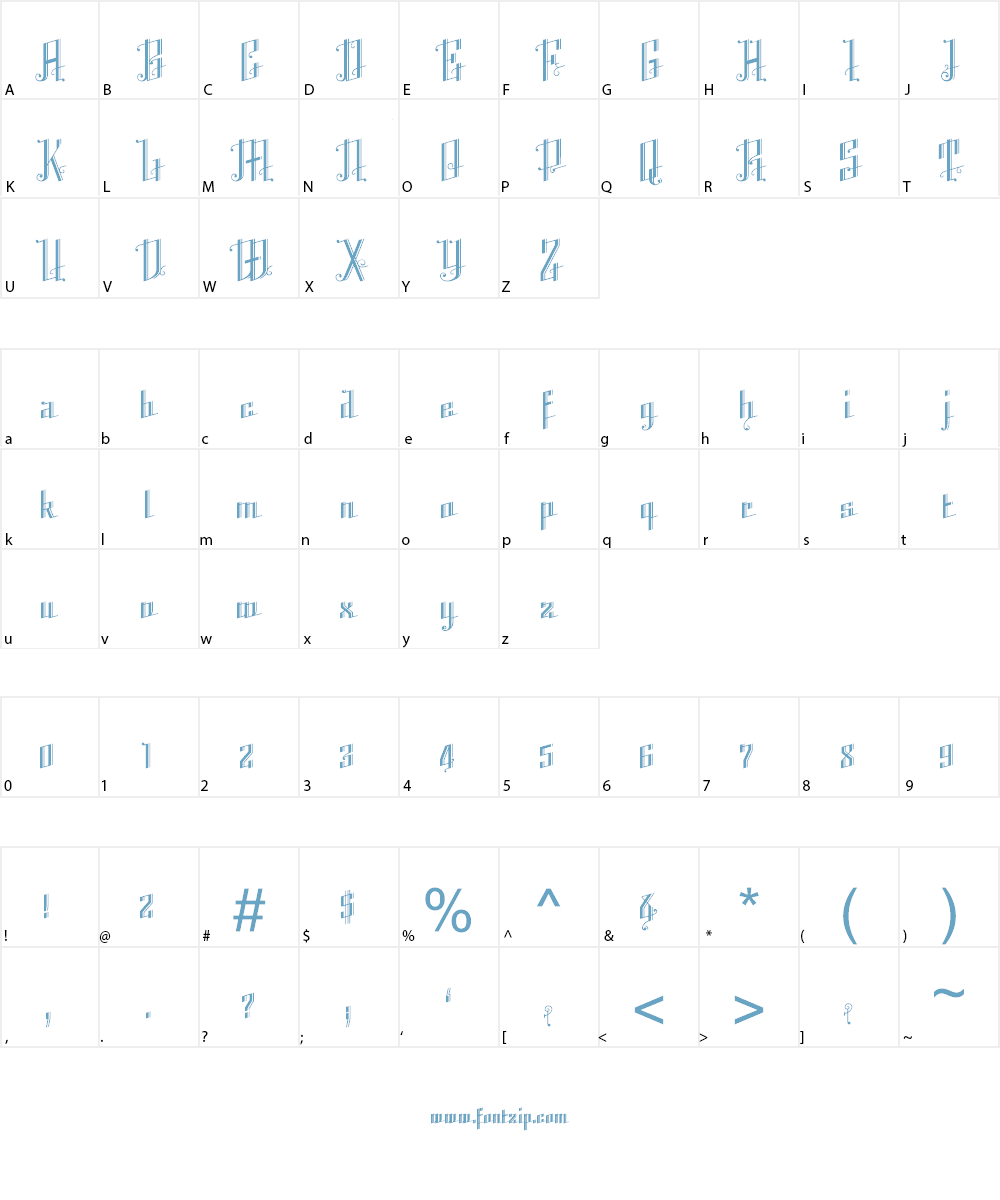
This font was digitized in memory of Dan X. Solo (1928-2012).
Designed and patented by Herman Ihlenburg in 1884 for MacKellar, Smiths & Jordan. Preserved by Dan X. Solo in Decorative Display Alphabets.